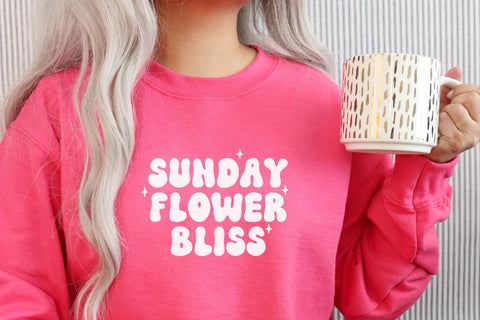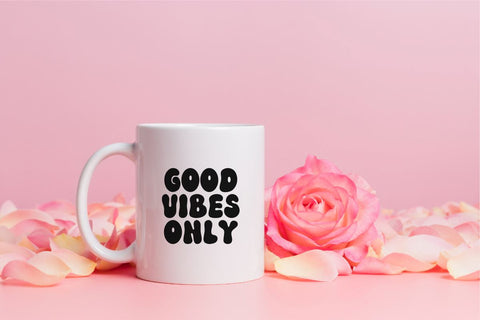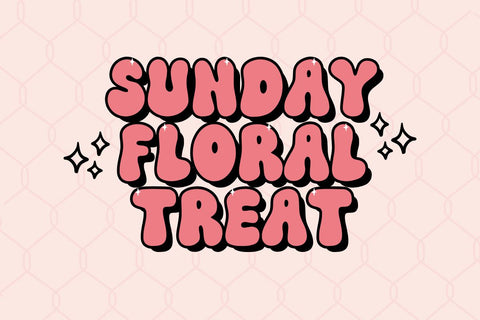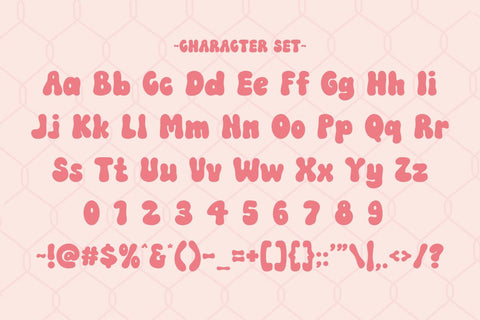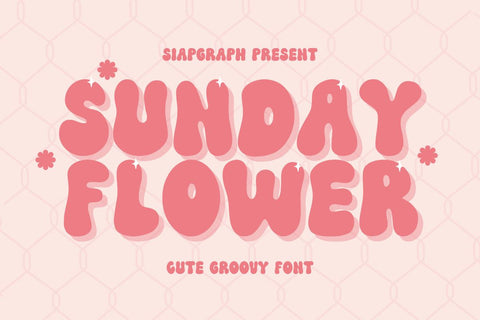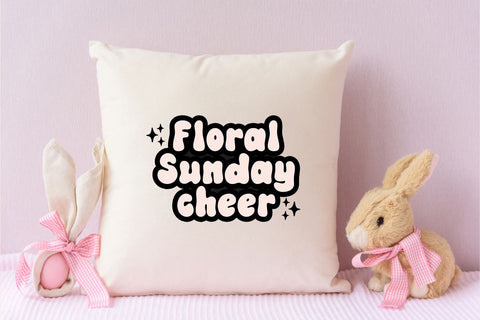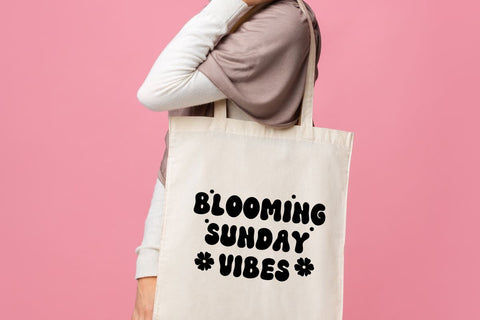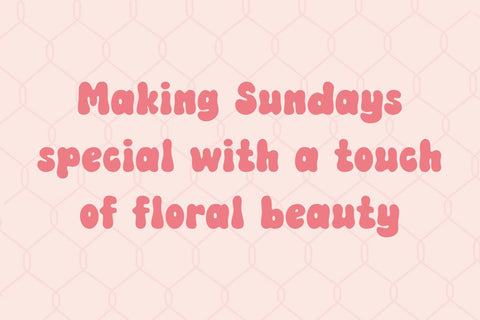
Sunday Flower - Cute Groovy Font
Sunday Flower is a bold and groovy retro font designed to bring a vibrant and nostalgic feel to your creative projects. Its playful curves and thick strokes make it a standout choice for designs that need a fun, vintage-inspired touch.
Perfect for crafting, DIY, branding, and KDP interior, Sunday Flower is ideal for planner designs, logos, greeting cards, merchandise, and product promotions. Its retro charm and bold aesthetic ensure that your designs capture attention and stand out in any setting.